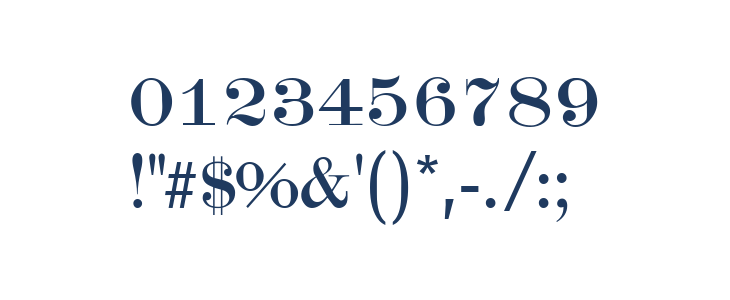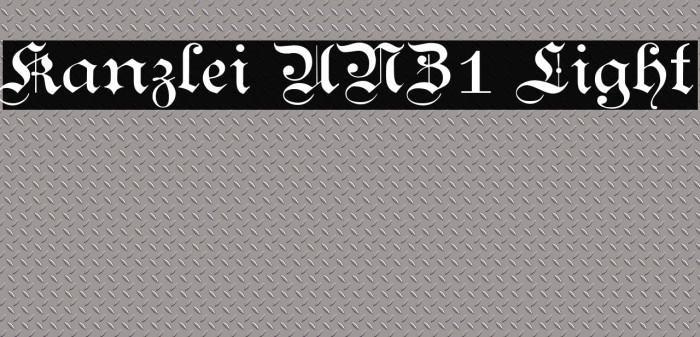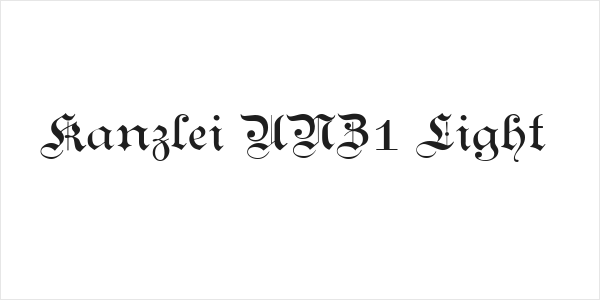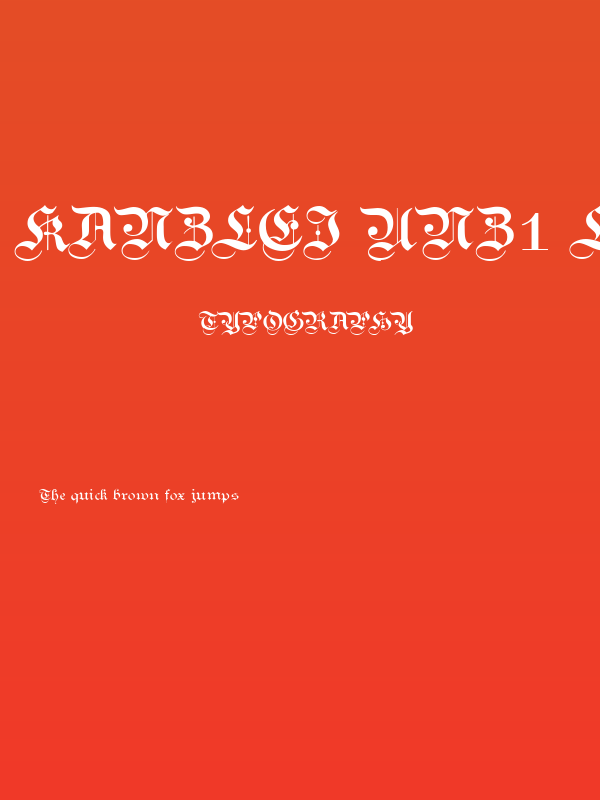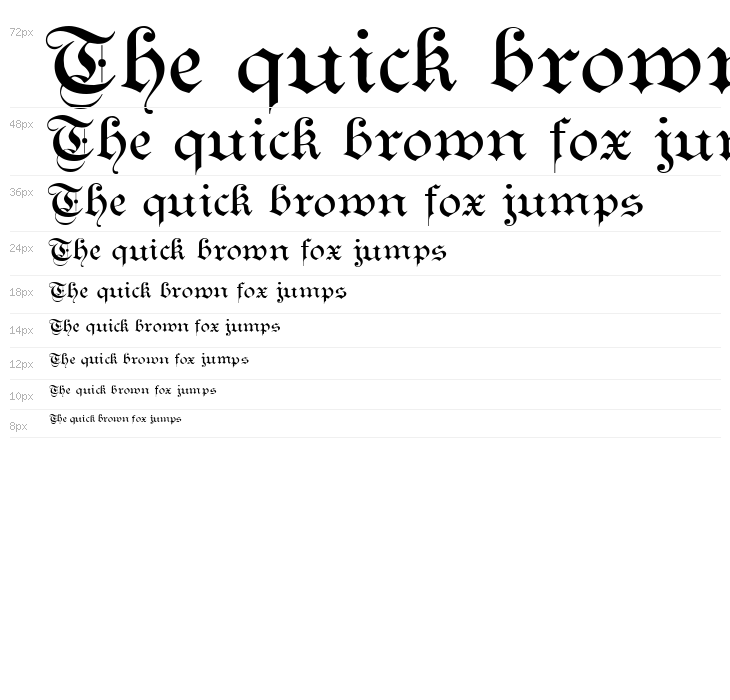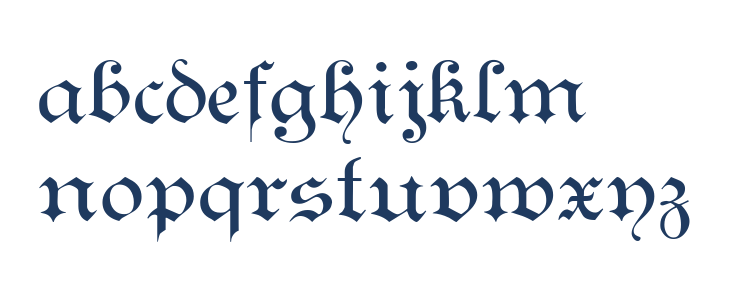
Kanzlei UNZ1 Light Font
Kanzlei UNZ1 Light Description
This font features a classic blackletter style with intricate, ornate details that evoke a sense of historical elegance. The uppercase letters are characterized by their elaborate flourishes and sharp, angular lines, while the lowercase letters maintain a more subdued yet equally sophisticated appearance. The numerals are bold and distinct, complementing the overall aesthetic. Special characters are designed with the same attention to detail, ensuring a cohesive look across all glyphs. This font's unique style is reminiscent of medieval manuscripts and traditional calligraphy, making it a striking choice for projects that require a touch of vintage charm.
| Use Case | Logos, Decorative text, Invitations |
| Proposed Projects | Ideal for wedding invitations, historical documents, branding for luxury goods, and decorative posters. |